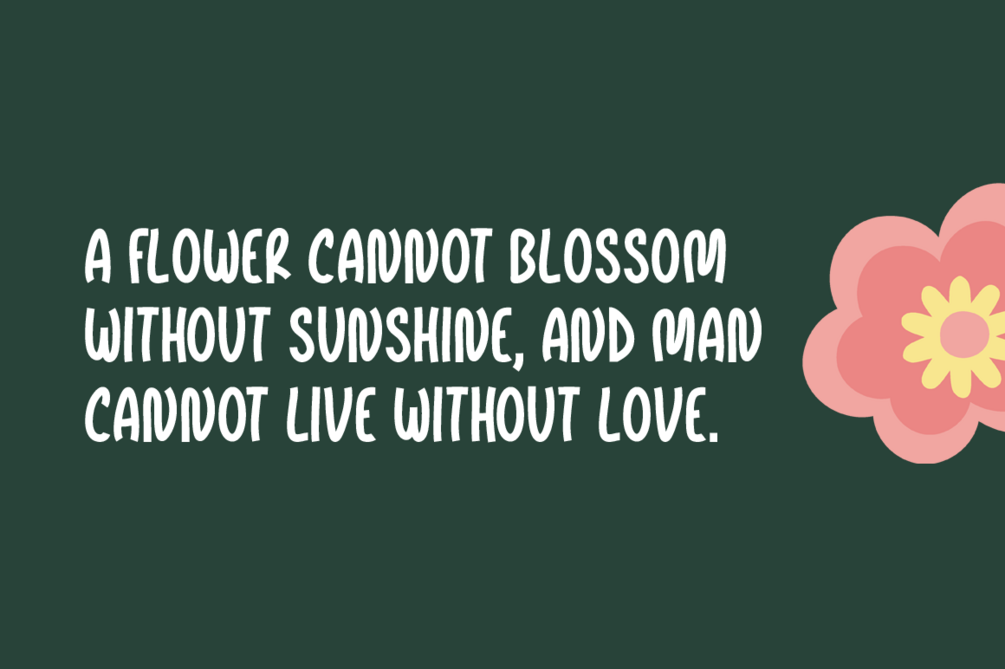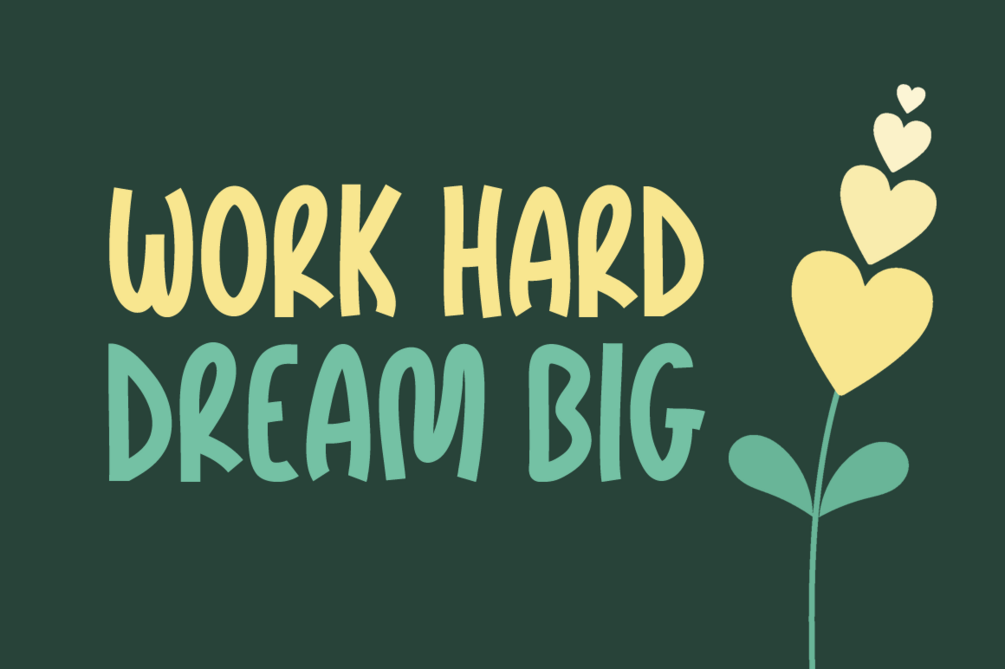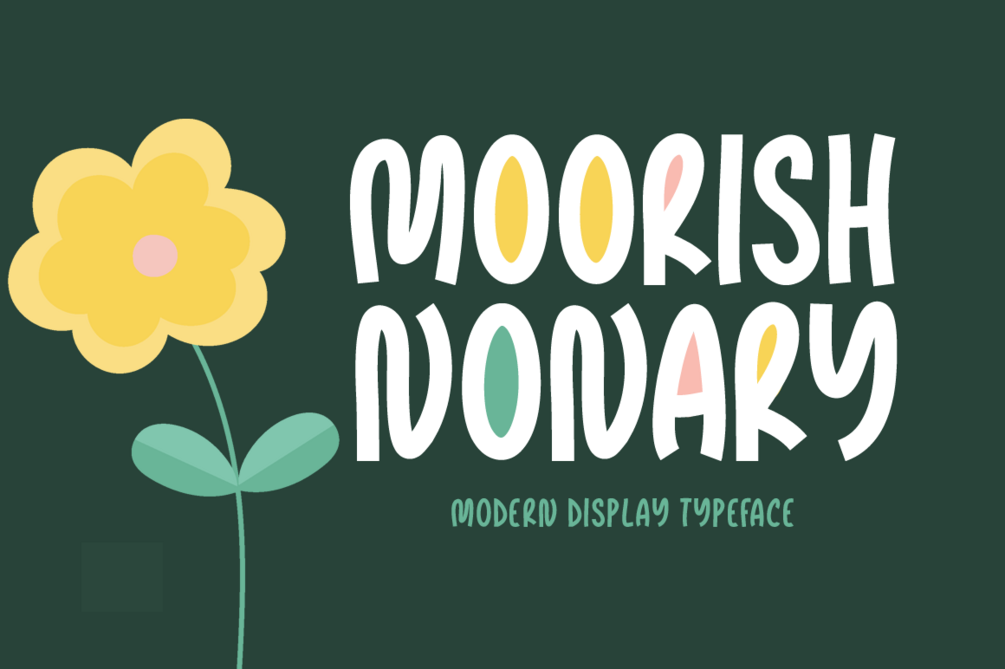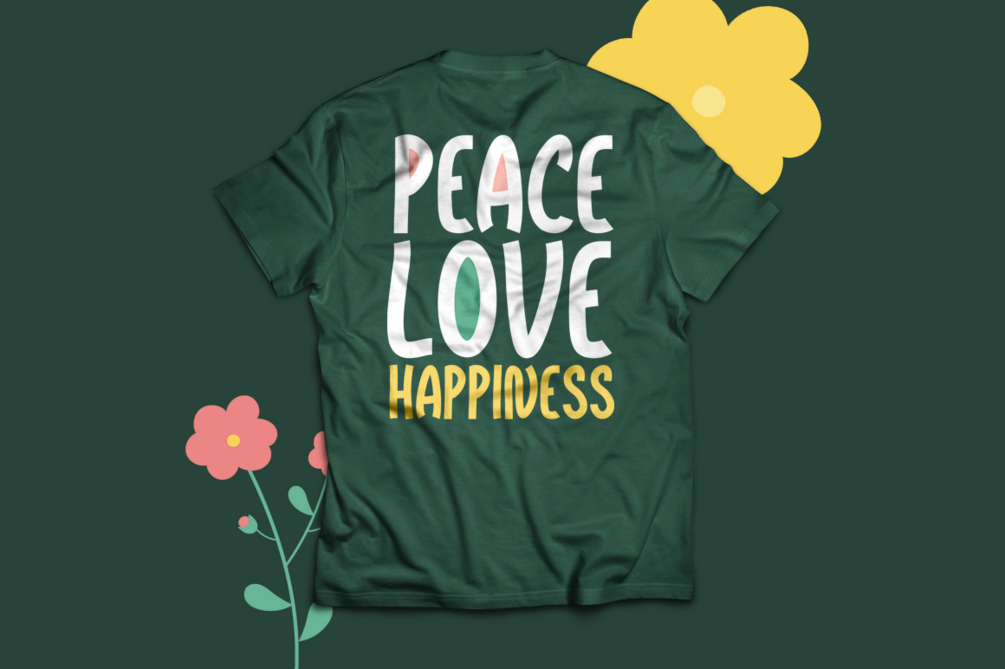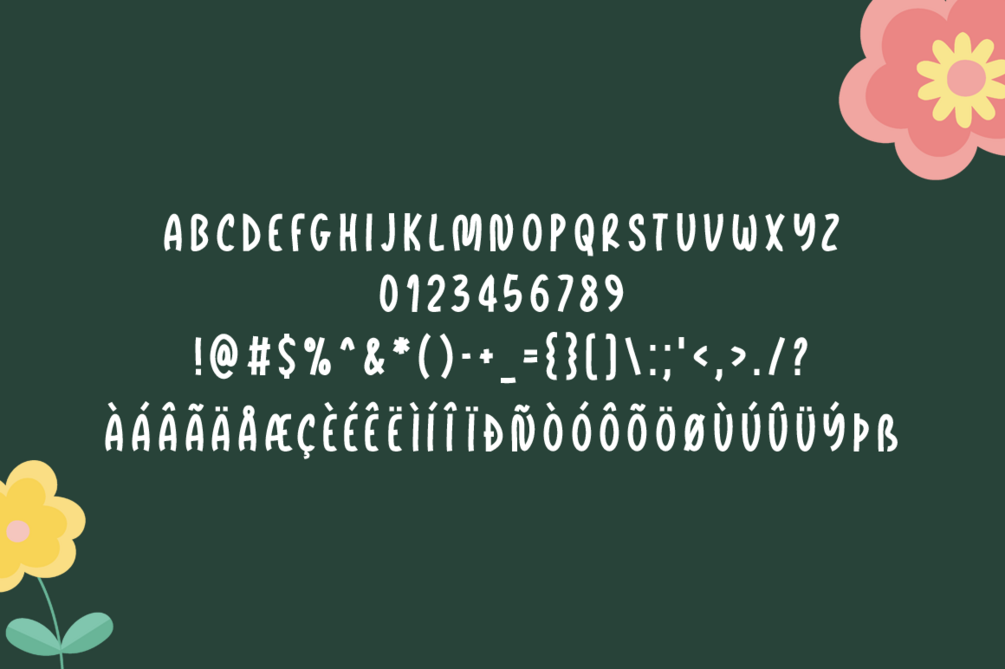
Moorish Nonary Typeface
Moorish Nonary is a brand new modern display font. Moorish Nonary is perfectly suited for stationery, logos, t-shirt, paper, print design, website header, photo frame, flyer, music cover, poster, image slider and much more.
Includes a range of multilingual support